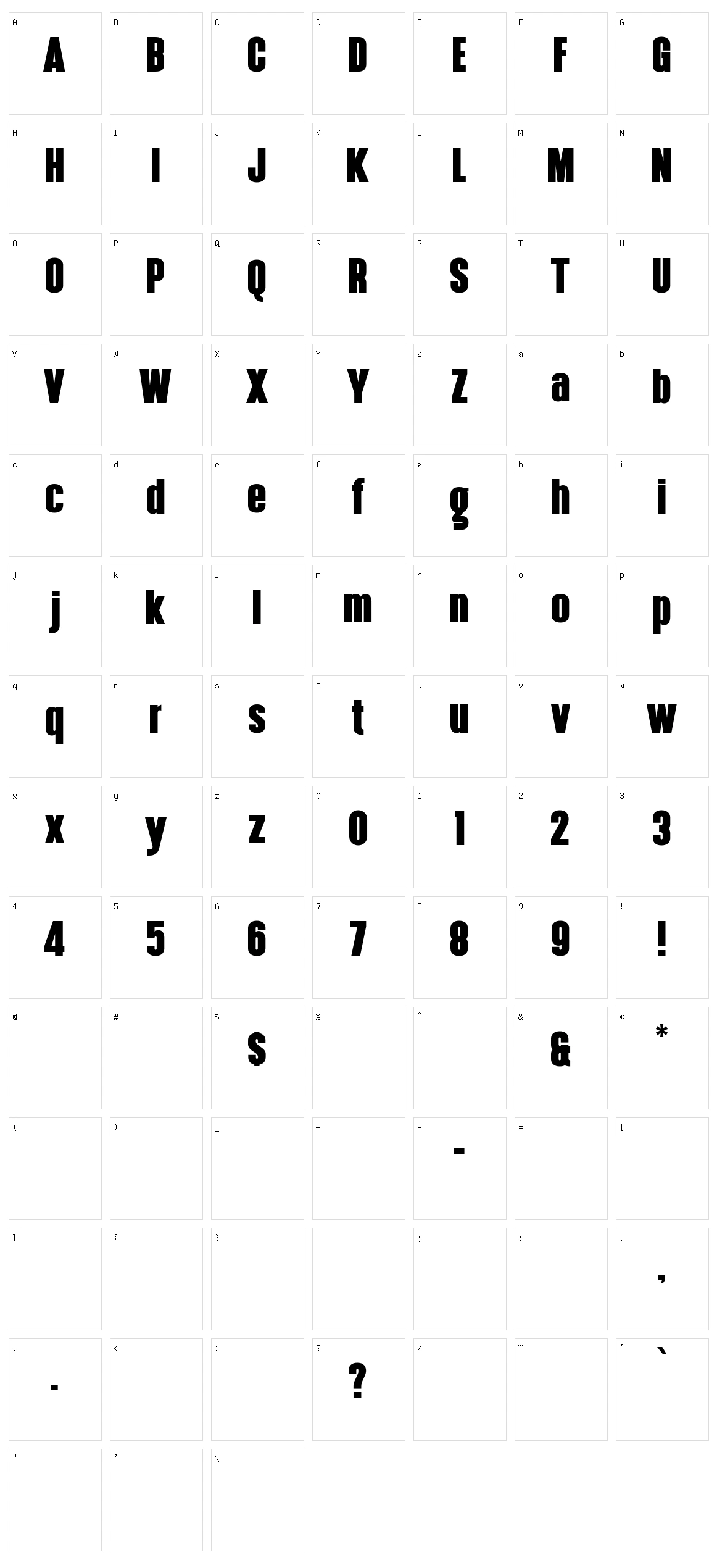
Hennigar is a Neo Grotesque sans designed for display text and headlines. While similar to Impact and Amsterdam at first sight many of the rounded letters are based on the appearance of the letter O with very little variation in width. Because of it's condensed nature the aperatures are narrow
with extenders that dip well below the base line. Similarly many of the lowercase characters are based on the lowercase o. Terminals and tails always point east/west giving the entire alphabet a very uniform appearance. Basic latin, extended latin, diacritics, punctuation, math symbols, science